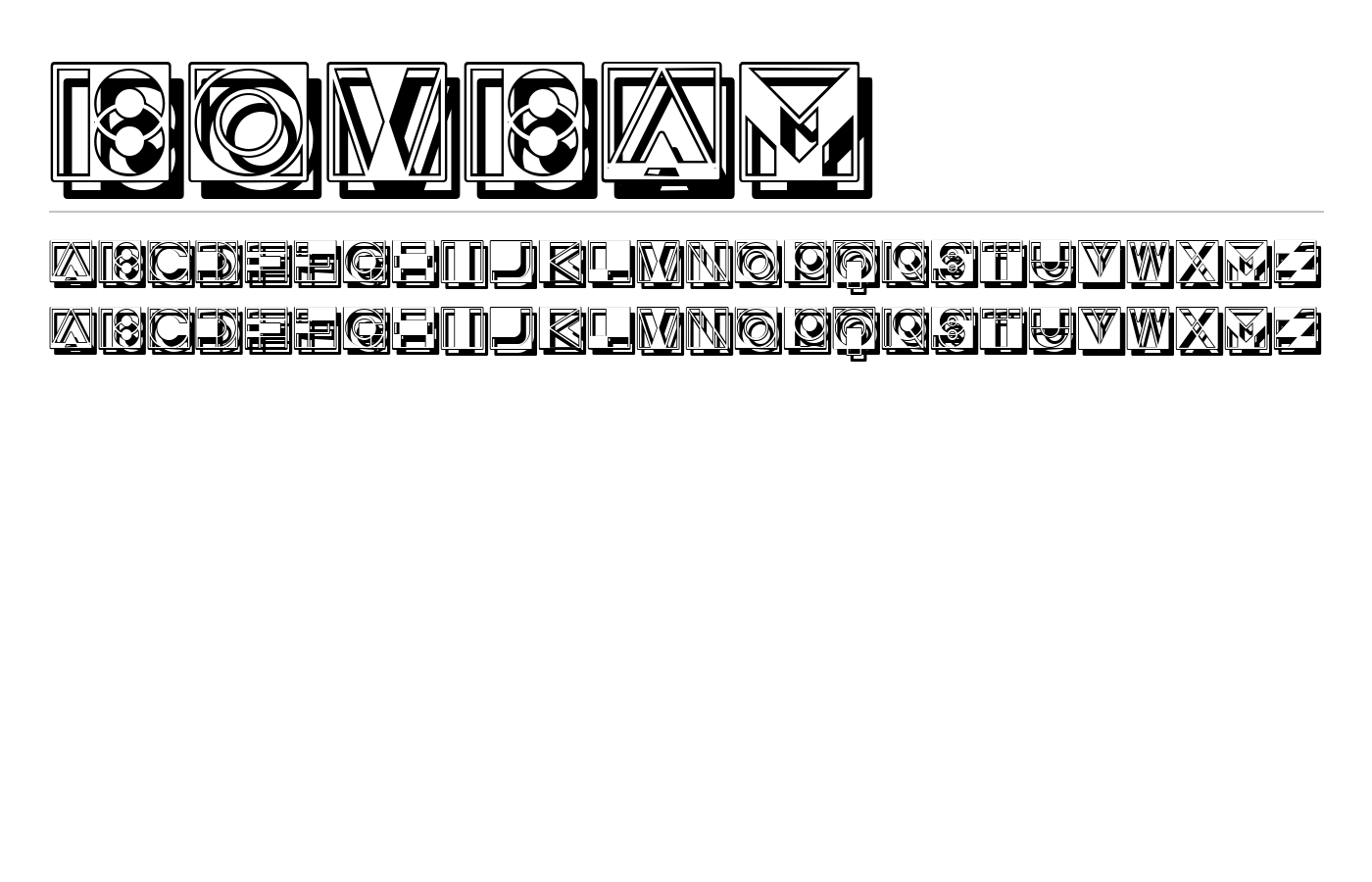
Bombay is a highly decorative display font characterized by bold, geometric letterforms enclosed in square frames, creating a striking and artistic visual impact. Its intricate design, with contrasting thick and thin lines and layered shapes, lends itself perfectly to eye-catching headlines, logos, or posters where a unique, modern, and avant-garde style is desired. This font is ideal for creative branding and projects seeking a distinctive, standout aesthetic.
Bombay Font
About Bombay Font
| Font family | Bombay Font |